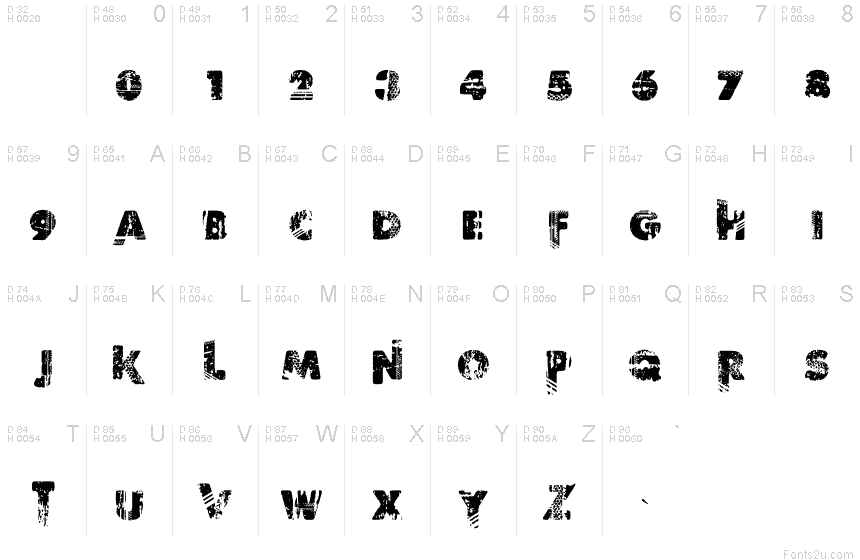
Border Line by High-Logic.com is a free eroded display font built around broad, forceful capitals. Scrapes, chips, torn patches, and streaks interrupt the strokes in different ways, often resembling tire tracks or peeling print. The uneven wear keeps the solid shapes restless and raw.
Its tire-track marks and peeling textures connect directly with gritty photography, photocopied collage, and industrial illustration. It suits skate merchandise, music posters, and action-game title screens. Across those uses, the battered surfaces make the words function as part of the artwork rather than a clean typographic overlay.